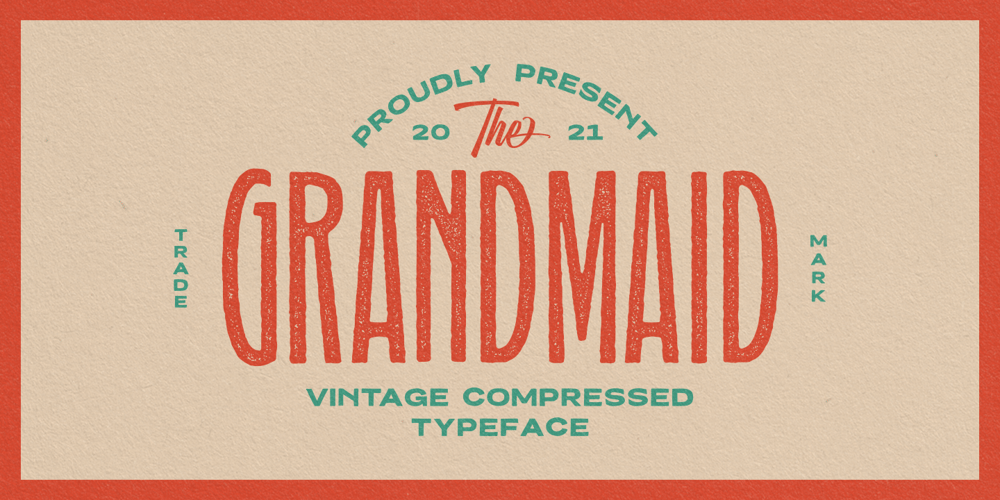
Grandmaid Font Family was designed by Umar Al Farouq and published by Martype co. Grandmaid contains 4 styles and family package options. Grandmaid is a family Sans Serif font designed with carefully handcrafted. Also suitable for branding, T-shirt, Classic Design, Logotype, and any project. Comes with a tons of ligature and alternates make your life more than comofortable, easier to design and free stress.